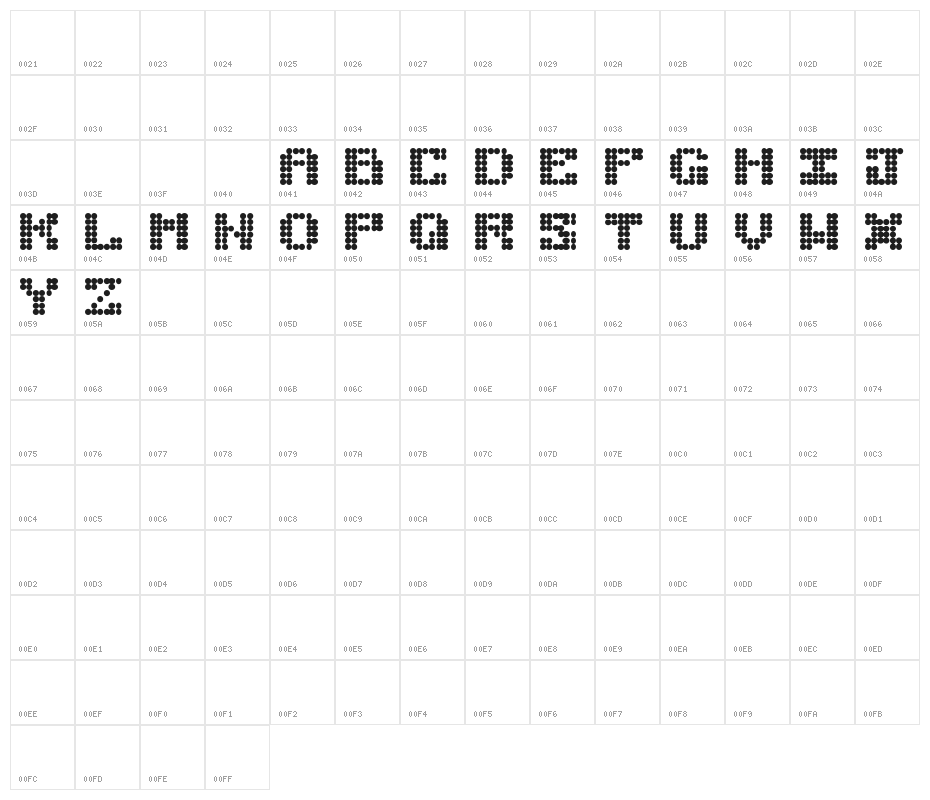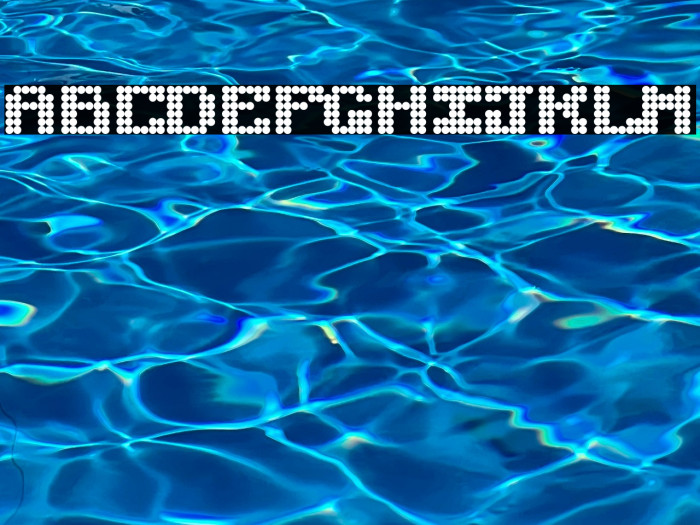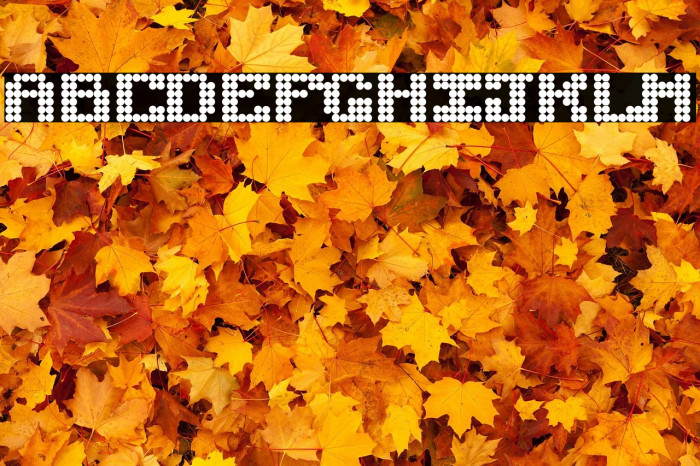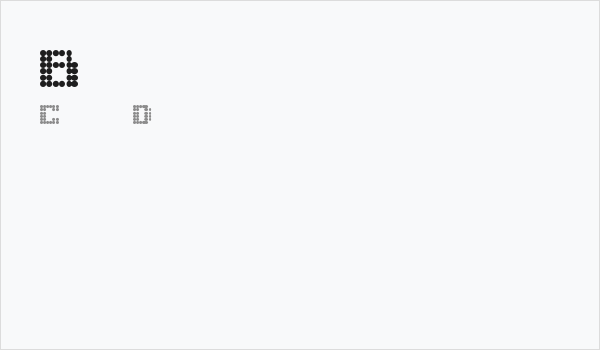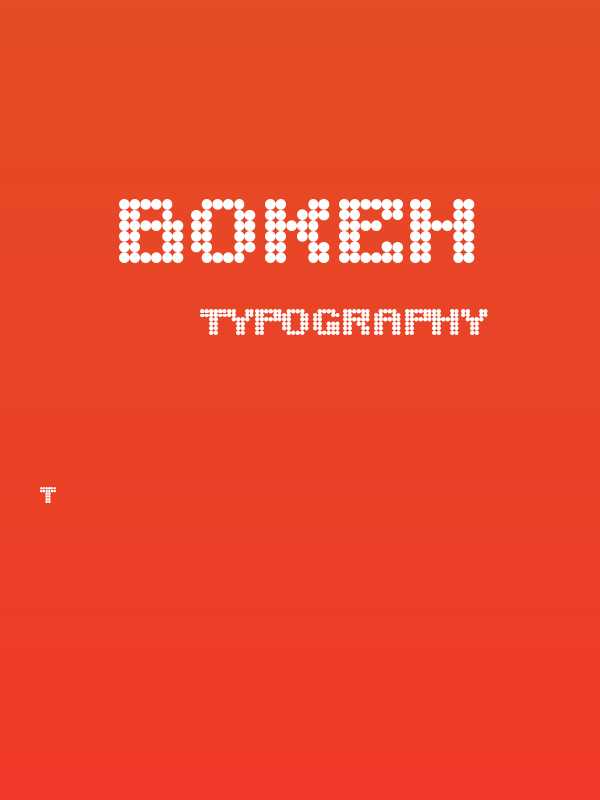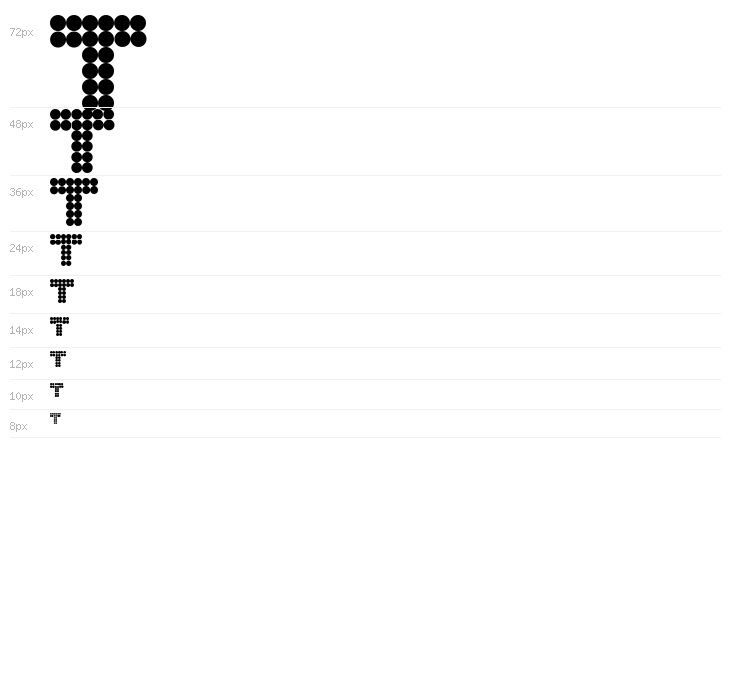
Bokeh Font
Bokeh Description
This font features a unique design where each character is constructed from a series of small, evenly spaced dots, creating a digital or pixelated effect. The uppercase letters are bold and uniform, maintaining a consistent height and width across the alphabet. The style is reminiscent of LED displays or retro digital screens, offering a modern yet nostalgic feel. The characters are well-defined, with clear distinctions between each letter, making it suitable for display purposes. The font's geometric nature gives it a structured and orderly appearance, while the dotted pattern adds a playful and creative touch.
| Proposed Projects | Ideal for digital displays, retro-themed designs, tech-related branding, or creative posters. |